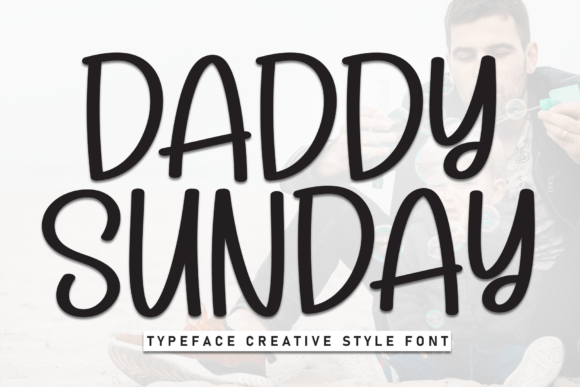
Daddy Sunday Font: The Perfect Blend of Casual and Neat Display
In the world of typography, fonts play a crucial role in conveying messages, expressing emotions, and creating a lasting impression. Among the numerous fonts available, Daddy Sunday Font stands out for its unique blend of casual and neat display characteristics. Designed to bring warmth and clarity to various projects, this font has become a popular choice for designers and brands alike.
What is Daddy Sunday Font?
Daddy Sunday Font is a casual and neat display font that boasts a clean structure and approachable style. Its balanced letterforms offer excellent readability and charm, making it an ideal choice for a wide range of design applications. Whether you’re working on branding, headlines, or everyday designs, this font is sure to bring a touch of warmth and authenticity to your projects.
Key Features of Daddy Sunday Font
- Clean Structure: The font’s clean structure ensures that your text remains clear and easy to read, even at smaller sizes.
- Approachable Style: The approachable style of Daddy Sunday Font makes it perfect for designs that require a friendly and inviting tone.
- Balanced Letterforms: The balanced letterforms provide excellent readability and charm, making every message feel genuine and engaging.
- Versatility: This font is versatile and can be used for various design applications, including branding, headlines, and everyday designs.
Usage and Applications of Daddy Sunday Font
Daddy Sunday Font is a versatile font that can be used in a variety of design applications. Some of the most popular uses include:
- Branding: The font’s clean structure and approachable style make it an excellent choice for branding projects, such as logos, business cards, and letterheads.
- Headlines: The font’s bold and eye-catching characteristics make it perfect for headlines, titles, and other display text.
- Everyday Designs: The font’s readability and charm make it suitable for everyday designs, such as flyers, brochures, and social media graphics.
Benefits of Using Daddy Sunday Font
There are several benefits to using Daddy Sunday Font in your design projects. Some of the most significant advantages include:
- Improved Readability: The font’s clean structure and balanced letterforms ensure that your text remains clear and easy to read.
- Enhanced Charm: The font’s approachable style and charm make it perfect for designs that require a friendly and inviting tone.
- Increased Versatility: The font’s versatility makes it suitable for a wide range of design applications, from branding to everyday designs.
- Unique Identity: The font’s unique characteristics help to create a distinct identity for your brand or project.
Tips for Using Daddy Sunday Font
To get the most out of Daddy Sunday Font, here are some tips to keep in mind:
- Use it for Headlines and Titles: The font’s bold and eye-catching characteristics make it perfect for headlines and titles.
- Pair it with Other Fonts: The font’s versatility makes it easy to pair with other fonts to create a unique and visually appealing design.
- Experiment with Different Sizes: The font’s clean structure and balanced letterforms ensure that it remains clear and easy to read, even at smaller sizes.
- Use it for Branding: The font’s approachable style and charm make it an excellent choice for branding projects.
In conclusion, Daddy Sunday Font is a versatile and charming font that is perfect for a wide range of design applications. Its clean structure, approachable style, and balanced letterforms make it an excellent choice for branding, headlines, and everyday designs. With its improved readability, enhanced charm, and increased versatility, this font is sure to bring warmth and clarity to your projects.
Whether you’re a designer, brand owner, or simply someone looking for a unique font to add to your collection, Daddy Sunday Font is definitely worth considering. Its unique characteristics, versatility, and charm make it an excellent addition to any design project. So why not give it a try and see how it can elevate your designs to the next level?